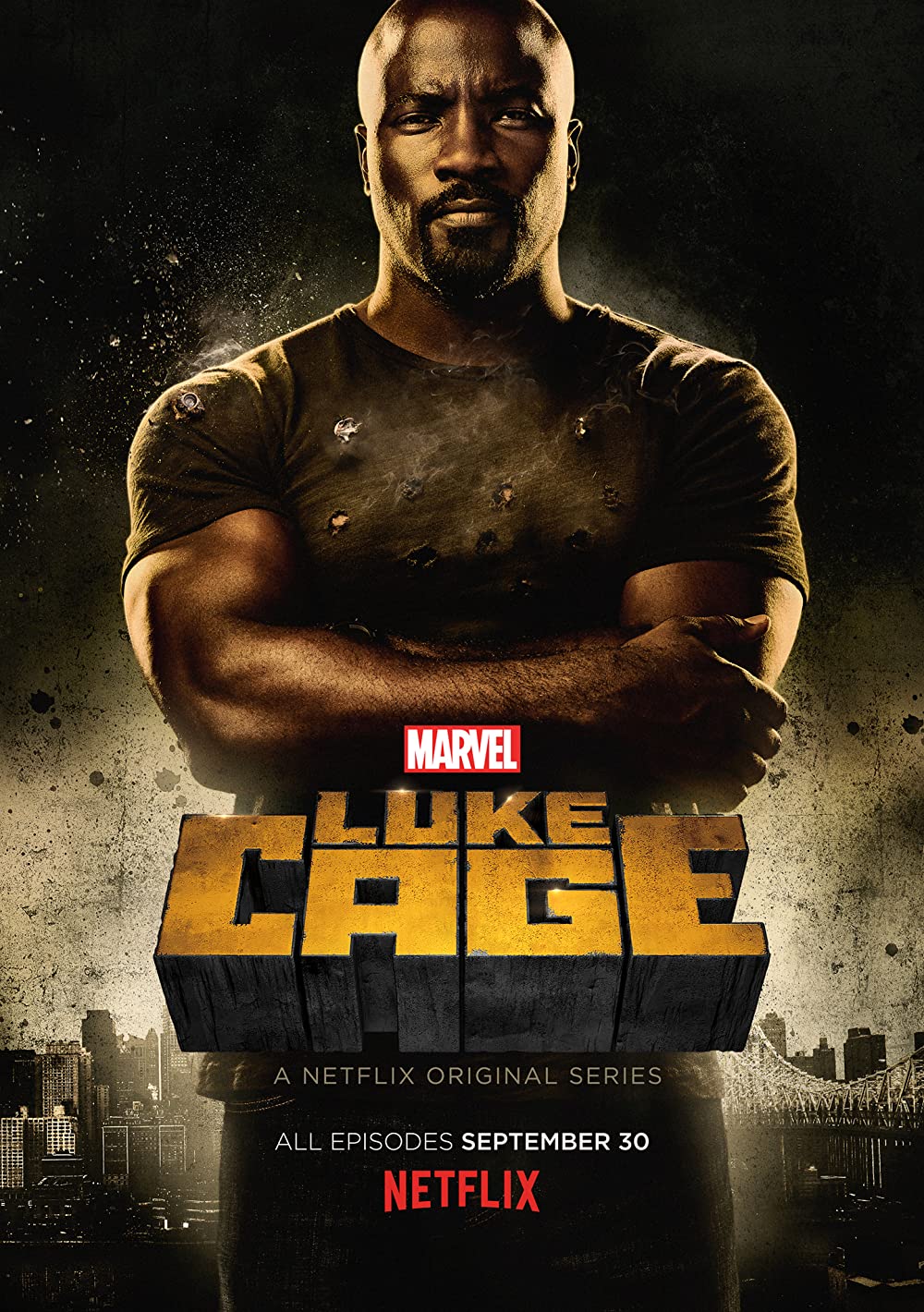
Luke Cage Font
ActionLuke Cage is a superhero drama series based on the Marvel Comics character of the same name. The series follows Luke Cage, a man with unbreakable skin and super strength, as he fights against corruption and crime in Harlem, New York City.